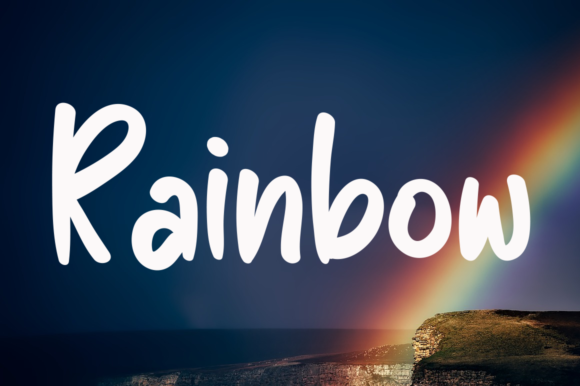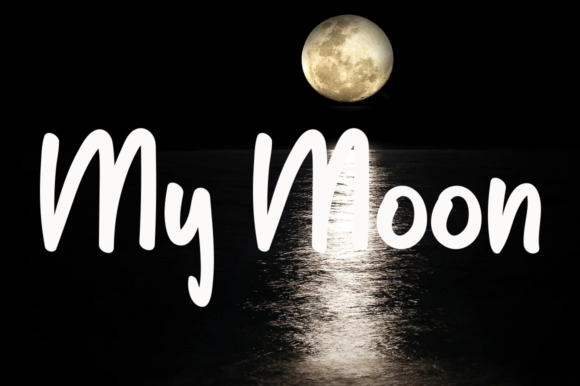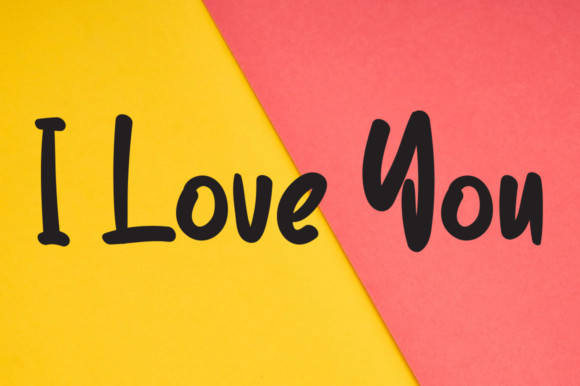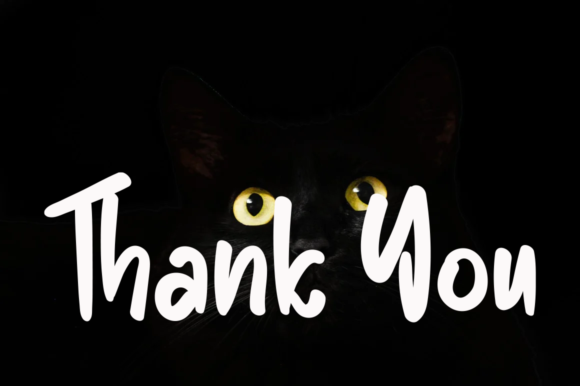
Introduction to Simple Kids Font
As a designer, there’s nothing quite like the thrill of starting a new project. The blank page, the endless possibilities, and the excitement of bringing your creative vision to life. But sometimes, it’s the smallest details that can make all the difference. For me, it was the discovery of the Simple Kids Font that sparked a wave of inspiration and set my creative juices flowing.
This charming, handwritten font is a treasure trove of elegance and whimsy, perfect for adding a touch of romance to your design projects. With its transparent background and high-quality design, it’s a valuable resource for any designer looking to elevate their work. Whether you’re working on a free download or a paid project, the Simple Kids Font is sure to bring a smile to your face and a touch of joy to your creative endeavors.
Key Features of Simple Kids Font
- High-quality design resource suitable for creative projects targeting children, such as educational materials, games, and websites.
- Comes with a transparent background, allowing for seamless integration with various design elements and backgrounds.
- Includes a range of font sizes and styles, with a minimum font size of 12pt and a maximum font size of 72pt.
- Designed at a high resolution of 300 DPI, ensuring crisp and clear text display on various devices and print materials.
- Unique, playful characters and letterforms that cater to the needs of children’s educational and entertainment content.
Honest Review: Simple Kids Font
As a designer, I’m always on the lookout for high-quality design resources that can elevate my creative projects. Recently, I stumbled upon the Simple Kids Font, and I’m excited to share my honest review.
What works well: ✨ This font is incredibly versatile and perfect for children’s projects, educational materials, and even branding. The transparent background makes it easy to customize and combine with other design elements. I love how the font is available for free download, making it an excellent choice for designers on a budget.
Here are some of my favorite features:
- High-quality design that’s perfect for print or digital projects
Limitations: ⚠️ While the Simple Kids Font is a great resource, it’s not suitable for all design projects. The font’s playful style may not be ideal for more formal or professional designs. Additionally, the free version may not include all the characters or variations you need.
Overall impression: I’m impressed with the Simple Kids Font, and I think it’s a great addition to any designer’s toolkit. While it may have some limitations, its versatility and high-quality design make it a valuable resource for any creative project.
Tips for Getting the Most Out of Simple Kids Font
To get the most out of the Simple Kids Font, use it in combination with other design elements, such as images and graphics, to create a visually appealing design. You can also experiment with different font sizes, colors, and styles to add depth and interest to your design.
The Simple Kids Font is ideal for a variety of creative projects, including children’s book illustrations, educational materials, and marketing materials for kids-related businesses. Its high quality and fun design make it a great choice for any project that requires a playful and engaging tone.